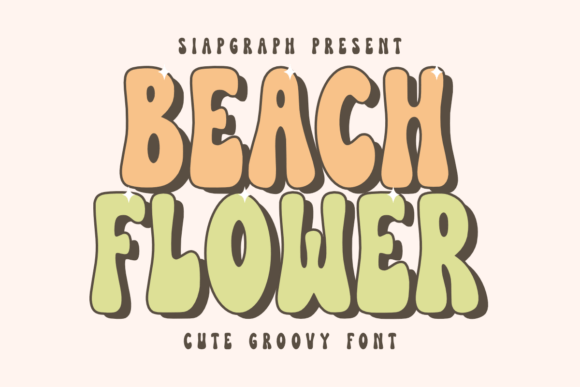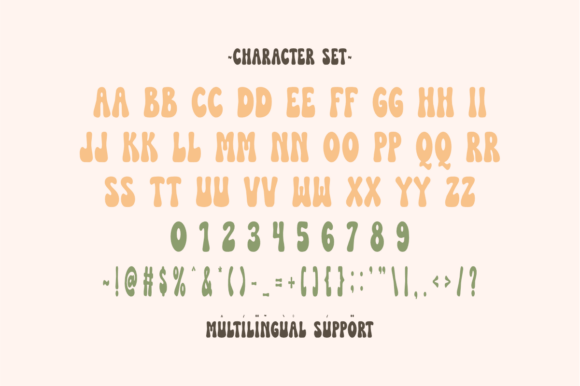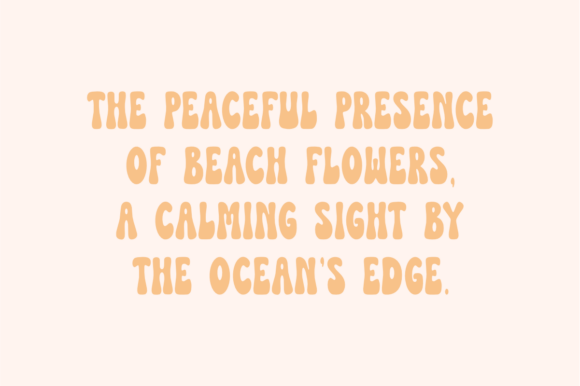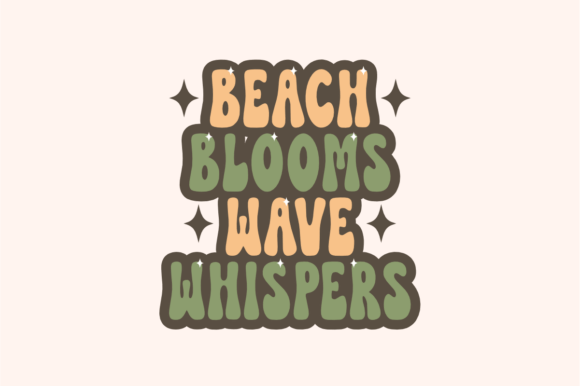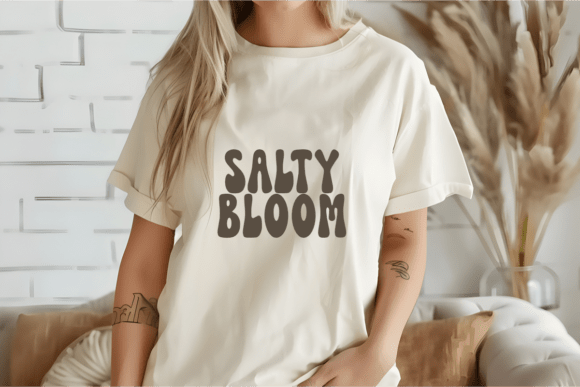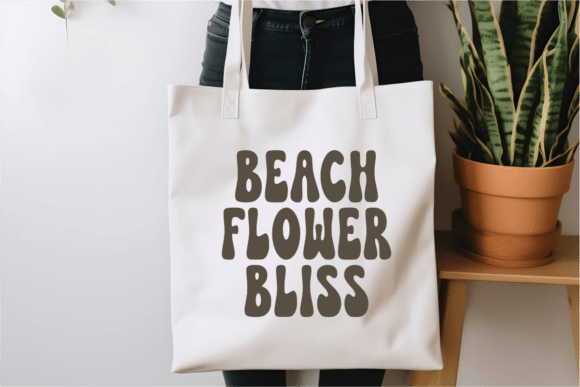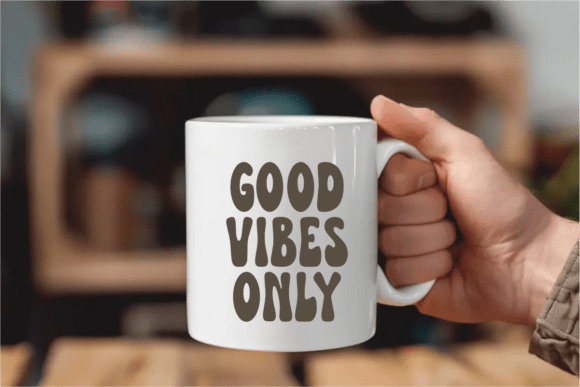
Beach Flower Font
Beach Flower is a cute and groovy bubble font with a playful retro vibe. Featuring rounded, thick, and bouncy letterforms, this font exudes a fun and cheerful aesthetic, perfect for summer, beach, and tropical-themed designs. With a soft and hand-drawn touch, Beach Flower is ideal for branding, posters, invitations, children’s books, stickers, social media graphics, and retro-style projects. The bold outline and shadow effect add depth, making it a great choice for eye-catching typography with a nostalgic yet modern feel.